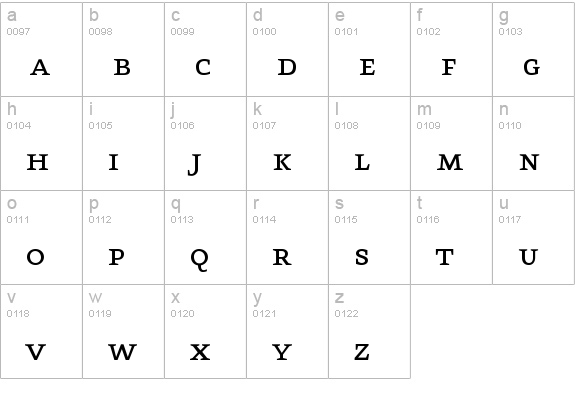
Eureka SmallCaps font is a stylish and elegant typeface that brings a touch of sophistication to any design project. With its clean lines and subtle curves, this font is perfect for creating a professional and polished look. The small caps style adds a unique flair to your text, making it stand out from the crowd. What's even better is that Eureka SmallCaps font is available for free download at FontsMarket.com. This means you can easily add this versatile font to your collection without any cost. Whether you're working on a logo, branding materials, or any other design project, Eureka SmallCaps font will elevate your work to the next level. Don't miss out on this opportunity to enhance your designs with this exceptional font. Download it today and experience the difference it can make!